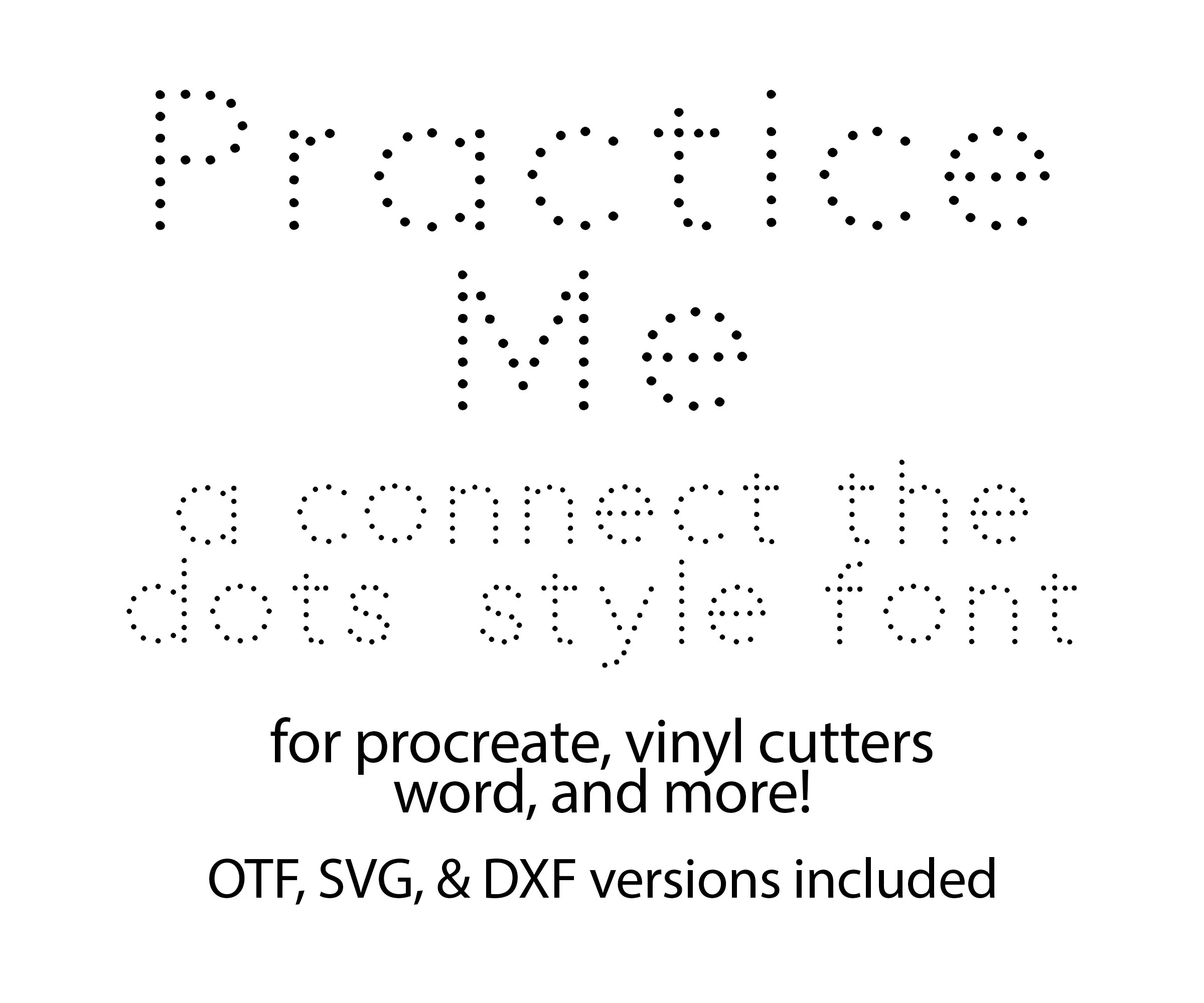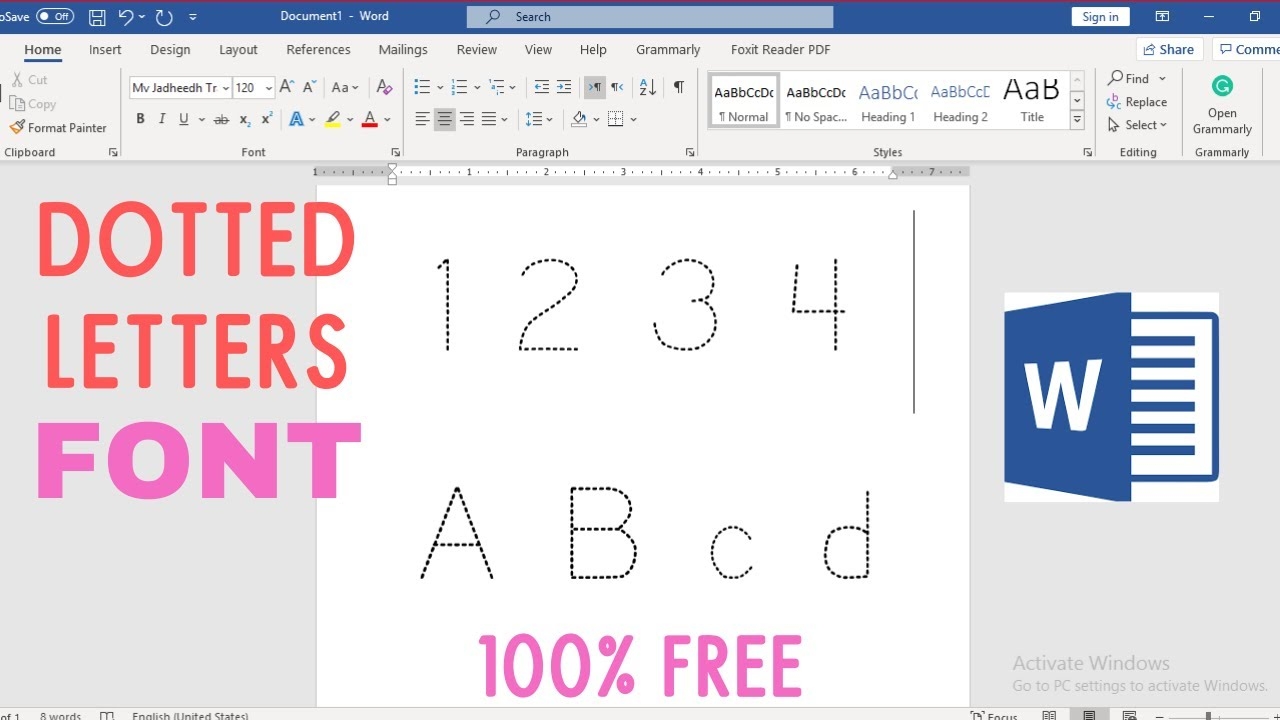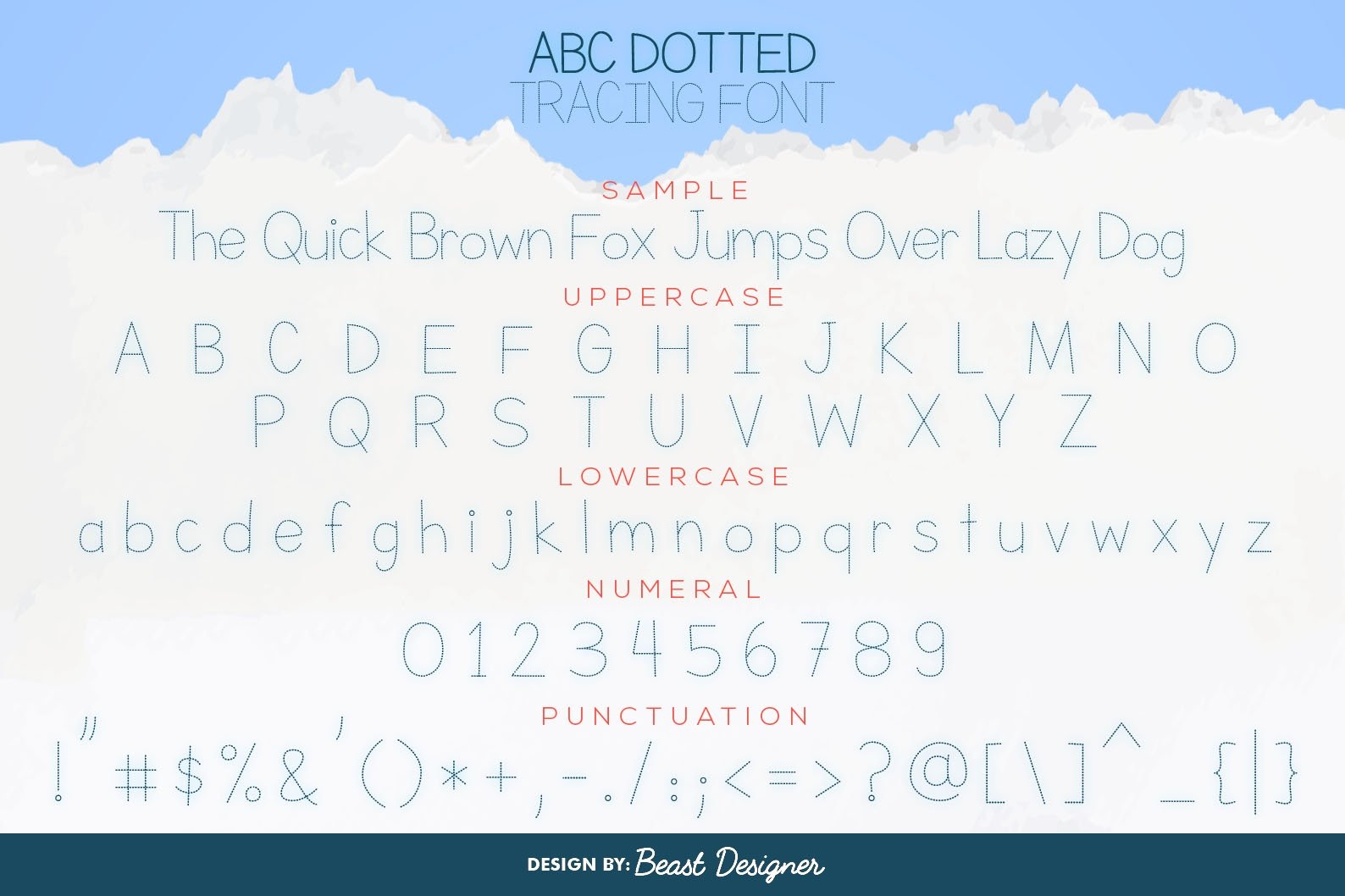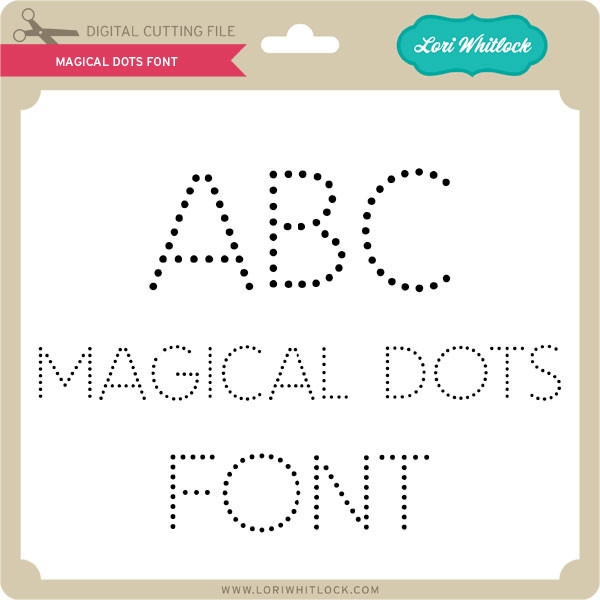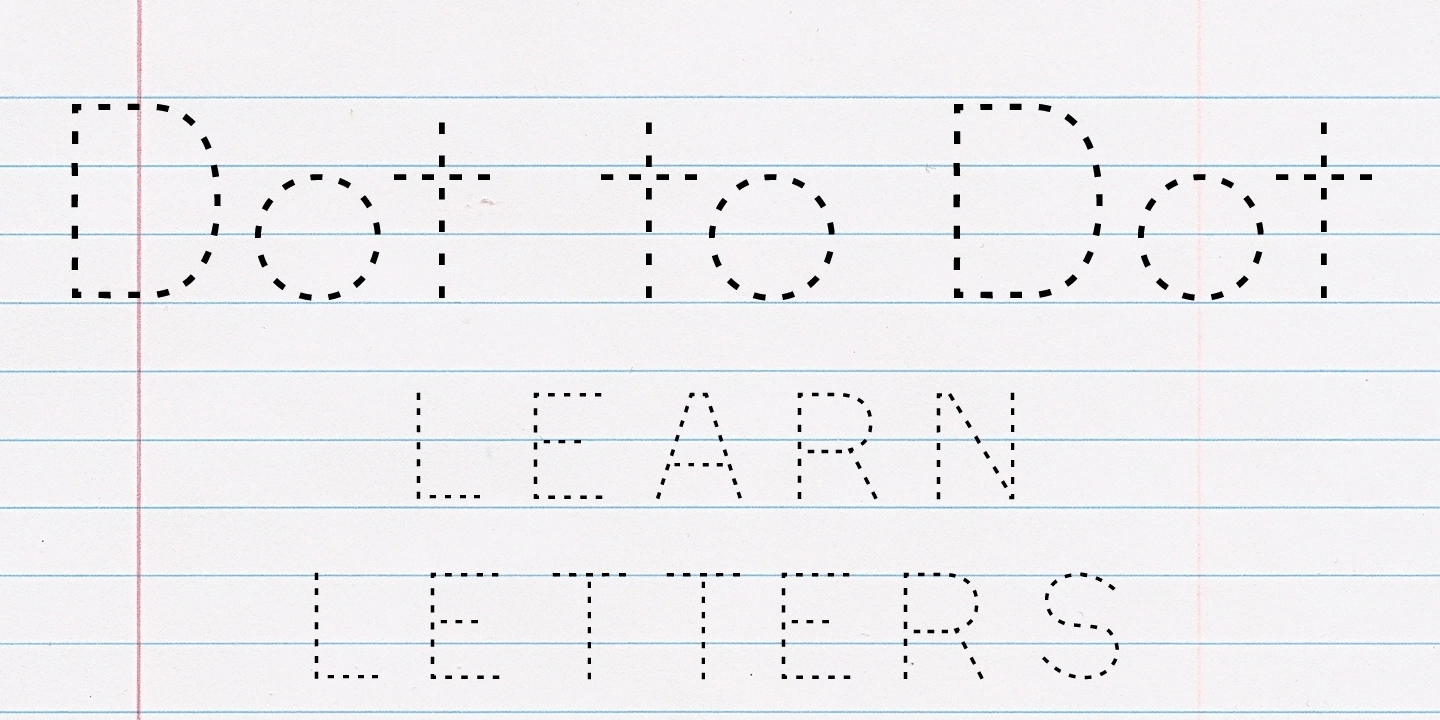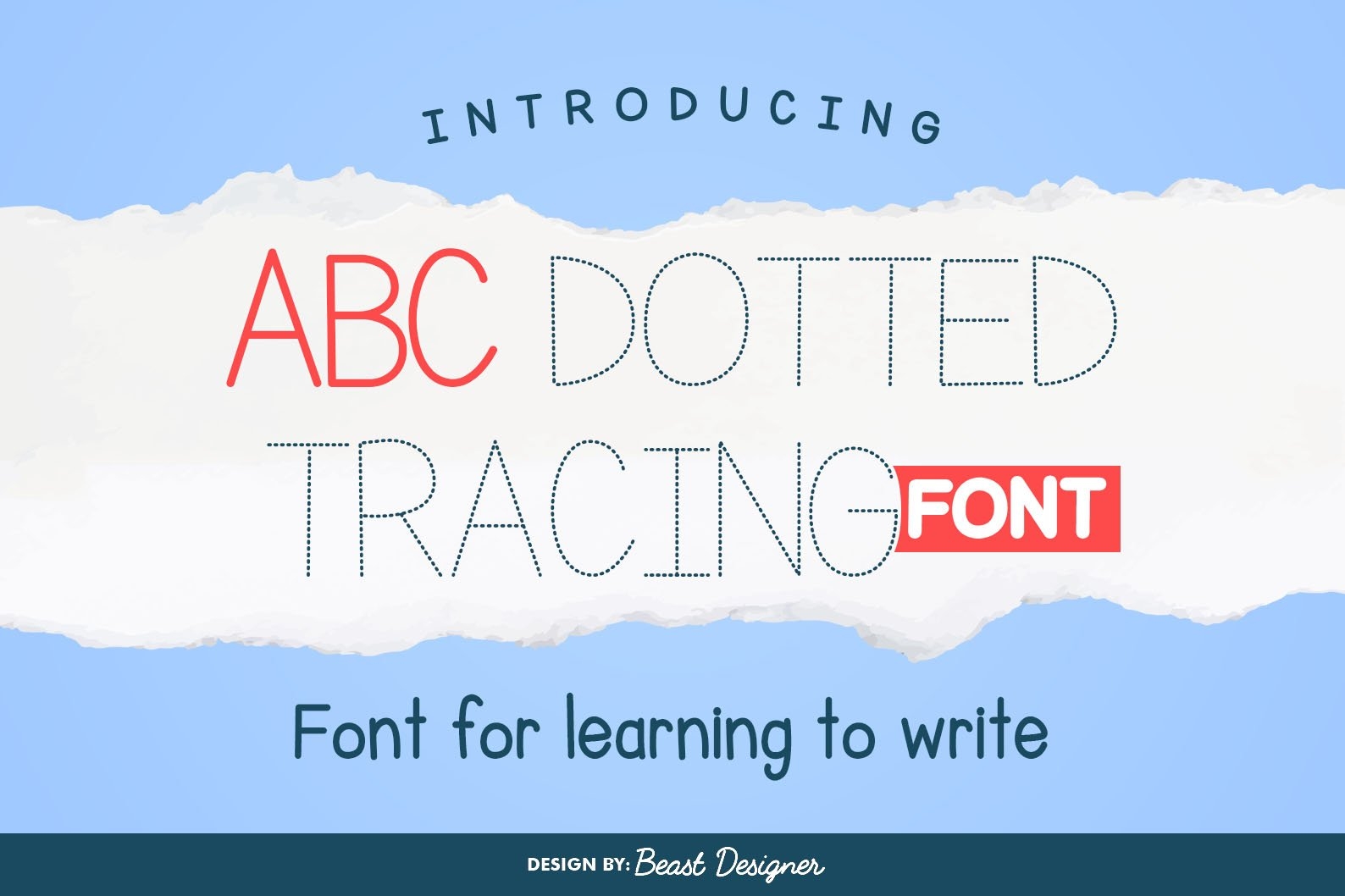
Finding the right font for tracing can be a game-changer for your creative projects. Whether you’re crafting personalized gifts or enhancing your scrapbooking, a dot font can add a unique touch to your designs.
Dot Font For Tracing Free
When searching for a dot font for tracing free options, consider websites that specialize in free downloadable fonts. These platforms often have extensive libraries, allowing you to find the perfect style that suits your project.
One popular choice is the “Dotted” font, which features clear and evenly spaced dots. This makes it ideal for both beginners and experienced crafters looking to create precise outlines for tracing.
Another great option is “Dotty,” which offers a fun and whimsical design. Its playful nature can make any project more engaging, especially for children’s crafts or educational materials.
Choosing the right dot font for tracing can elevate your creative endeavors significantly. With so many free options available, you can easily find one that fits your style and needs perfectly.